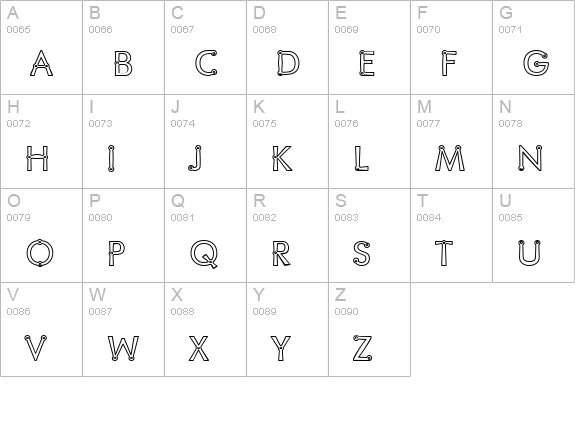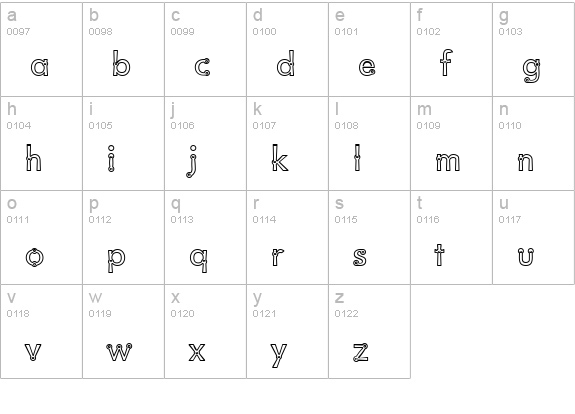
Blacksmith Delight Outlined Font Details
Blacksmith Delight Outlined font is a striking and bold typeface that exudes strength and craftsmanship. With its rugged and industrial-inspired design, this font is perfect for projects that require a touch of ancient charm and artisanal flair. The outline style adds a unique and eye-catching element to your text, making it stand out and grab attention. And the best part? Blacksmith Delight Outlined font is available for free download at FontsMarket.com! Whether you're working on a logo, poster, or branding project, this font will add a touch of character and authenticity to your designs. Embrace the spirit of the blacksmith and let your creativity forge new paths with this stunning typeface.